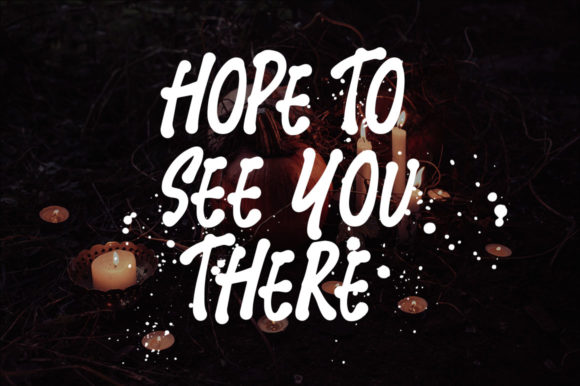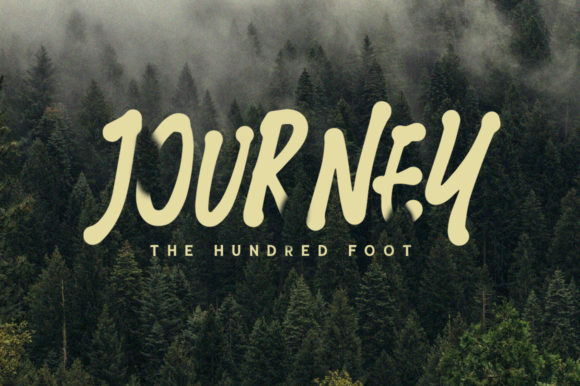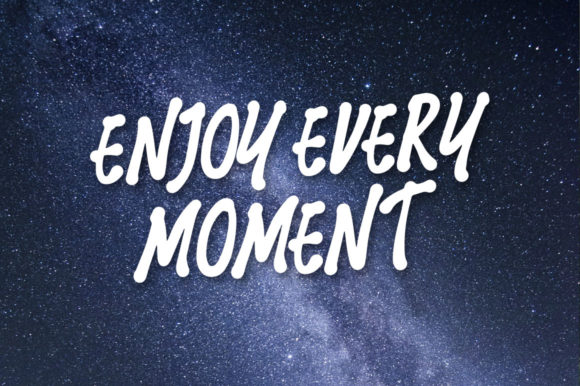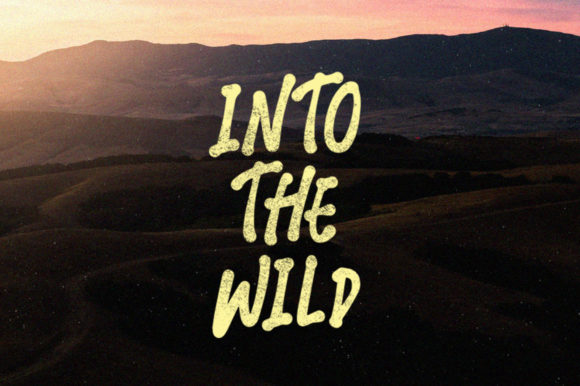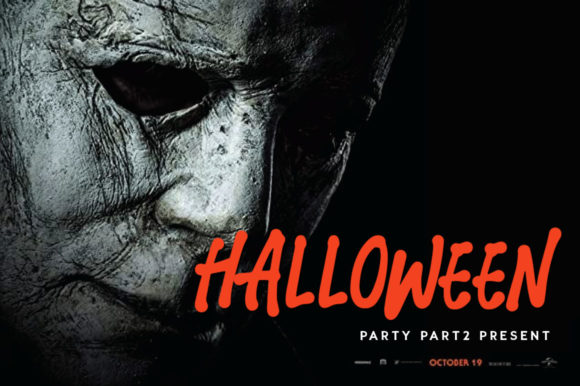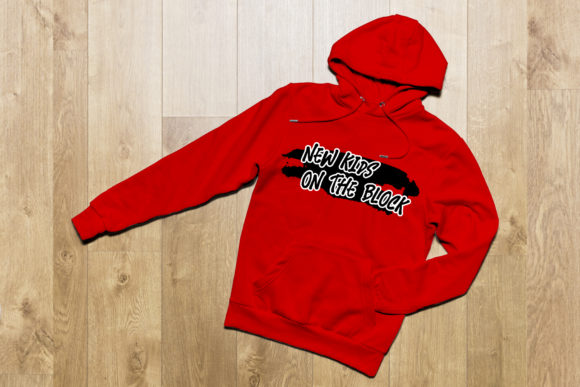
The Aggressive Font: A Quirky Display Font to Elevate Your Designs
I’ll never forget the time I was working on a project for a client who wanted a bold, eye-catching font to capture the essence of their brand. I scoured the internet, tried countless fonts, but nothing seemed quite right. That was until I stumbled upon the Aggressive font. This unique and interesting display font has been a game-changer for me, and I’m excited to share my experience with you.
So, what makes the Aggressive font so special? Let’s dive into the good stuff and some of its quirks.
• ✨ Unique and quirky design that’s sure to turn heads
• ✅ Highly versatile and adaptable to various contexts
• 💥 Perfect for display text, titles, and headings
• 🎨 Great for creative projects, such as posters, flyers, and brochures
While the Aggressive font is fantastic, it’s not without its limitations. Here are a few things to keep in mind:
• 🤔 May not be suitable for body text or long paragraphs due to its bold and condensed design
• ⚠️ Some characters may not be suitable for use at small font sizes
A Practical Guide to Using Aggressive Font
Now that we’ve covered the basics, let’s dive into how to use the Aggressive font in different design platforms.
• Blackout: A bold and condensed font with a gritty, urban feel. Perfect for titles, headings, and posters.
The Aggressive font was designed with inspiration from urban landscapes, gritty graffiti, and industrial typography. The designer aimed to create a font that’s bold, quirky, and attention-grabbing – perfect for making a statement in your designs.
Font Name Agressive Font
Author spectrumsupply.co
Q: What is the Aggressive font best used for?
A: The Aggressive font is best used for display text, titles, and headings. Its bold and condensed design makes it perfect for grabbing attention and making a statement.
Q: Can I use the Aggressive font for body text?
A: While it’s technically possible to use the Aggressive font for body text, it’s not recommended. The font’s bold and condensed design can make it difficult to read in large blocks of text.
Q: Is the Aggressive font suitable for use at small font sizes?
A: Some characters may not be suitable for use at small font sizes. It’s best to use the Aggressive font at larger font sizes to ensure optimal legibility.